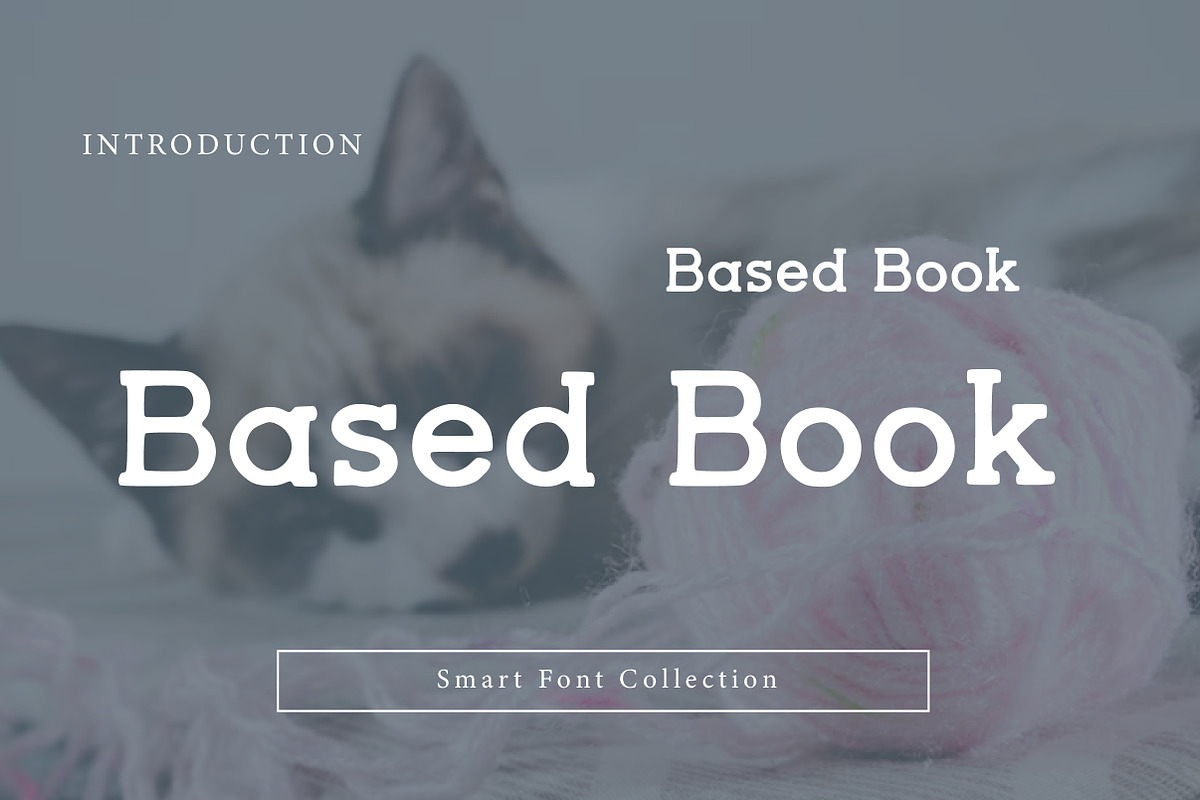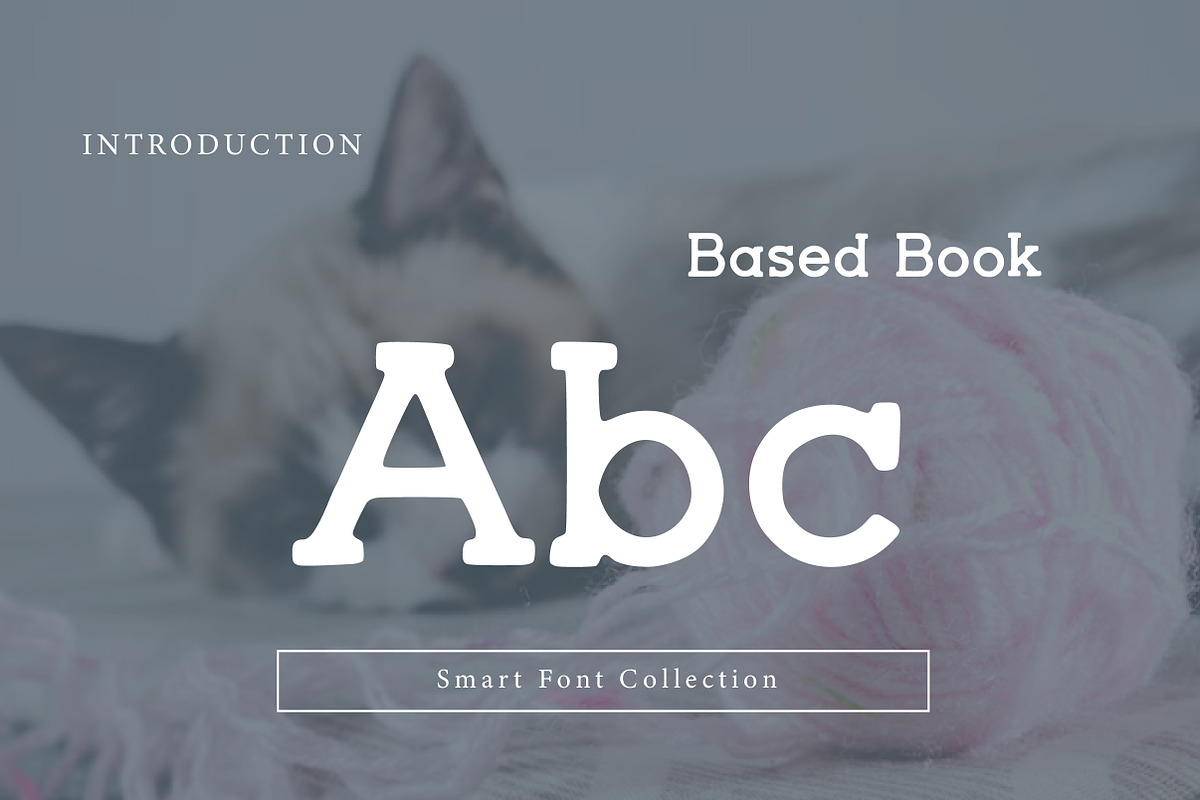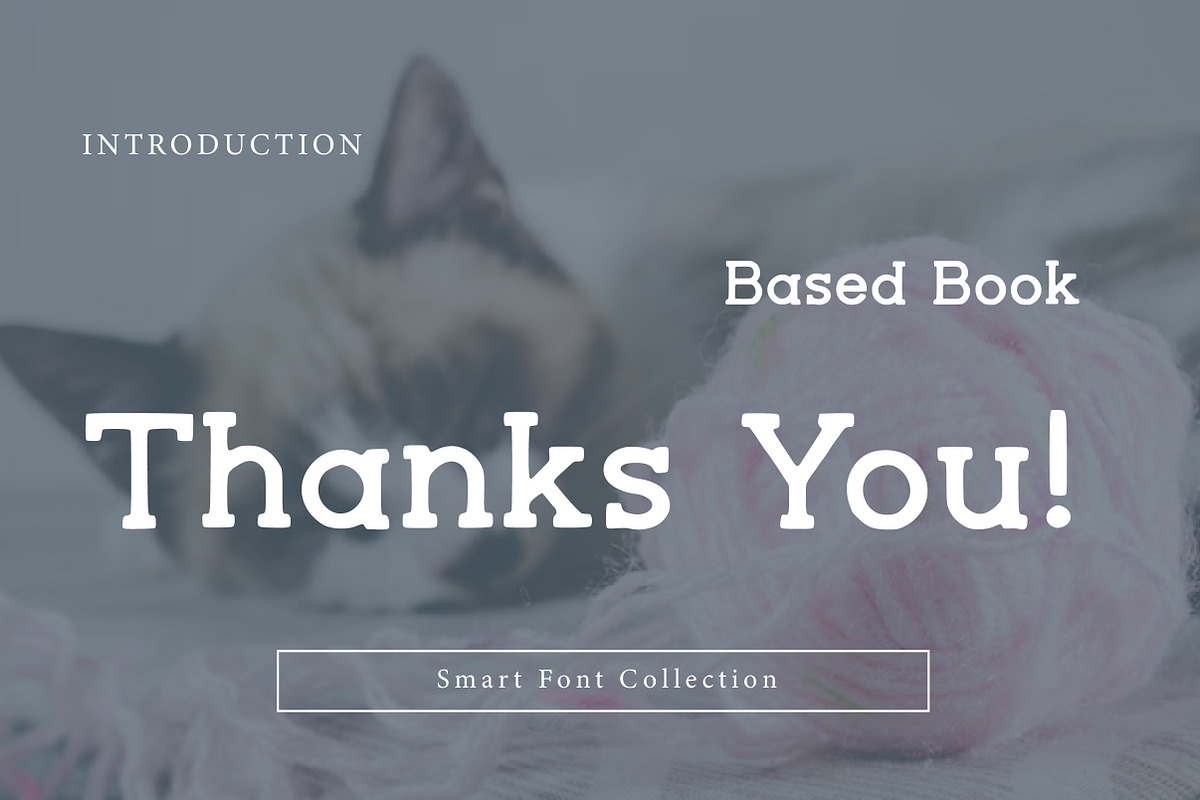
Based book
Based Book is a bold, friendly serif display font with soft curves, sturdy stems, and a charming bookish personality. Its readable, slightly playful letterforms make it perfect for book covers, editorial headlines, logos, branding, packaging, labels, posters, and vintage-inspired typography. Based Book delivers a classic feel with a modern, approachable twist.